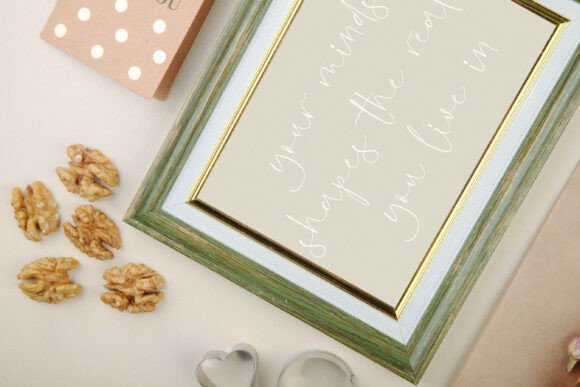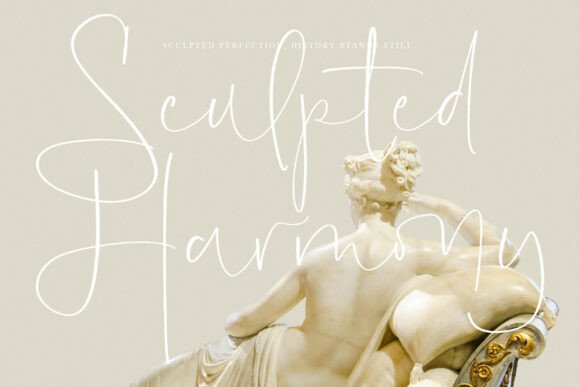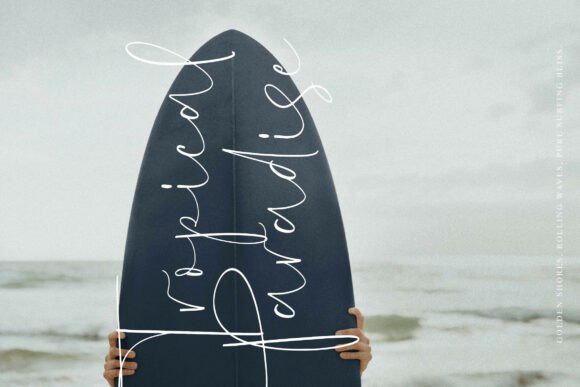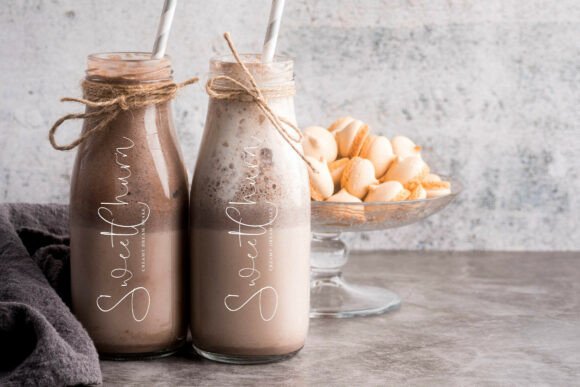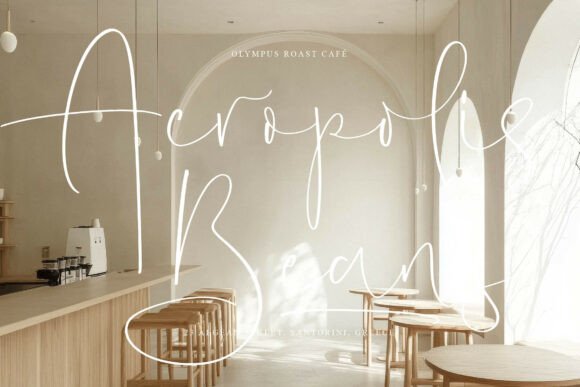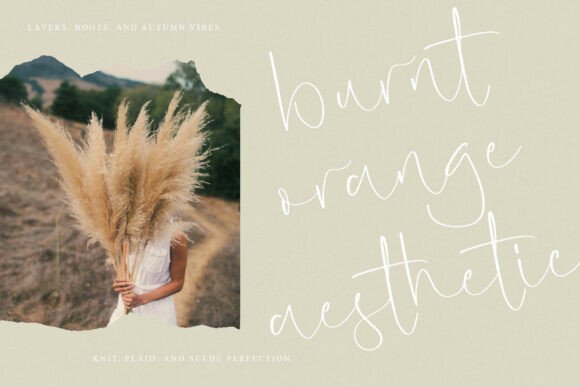
Introducing Acropholis Font: Elevate Your Designs with Elegance and Sophistication
In the world of typography, fonts play a crucial role in conveying the tone and aesthetic of a design. For those seeking a typeface that exudes elegance, romance, and a touch of whimsy, Acropholis Font is an exceptional choice. This light and airy handwritten font boasts an ethereal presence, making it perfect for a variety of creative projects, from editorial layouts and wedding invitations to poetry quotes and personal journals.
The Characteristics of Acropholis Font
Acropholis Font is distinguished by its long ascenders and elegant flow, which collectively contribute to its sophisticated and romantic feel. The font’s design is characterized by:
- Light and Airy Texture: Acropholis has a delicate, airy quality that adds a layer of refinement to any design.
- Ethereal Presence: The font’s ethereal nature makes it stand out, giving it a unique and captivating charm.
- Long Ascenders: The extended ascenders contribute to the font’s elegant and sophisticated appearance.
- Elegant Flow: The smooth, flowing lines of Acropholis enhance its romantic and refined aesthetic.
Ideal Uses for Acropholis Font
Given its distinctive characteristics, Acropholis Font is well-suited for a range of applications, including:
- Editorial Layouts: Add a touch of sophistication to magazine articles, blog posts, and other editorial content.
- Minimalist Wedding Invites: The font’s elegance and romance make it an excellent choice for wedding invitations and other wedding-related materials.
- Poetry Quotes: Acropholis’ ethereal and refined nature lends itself beautifully to showcasing poetic quotes and literary works.
- Personal Journals: Use Acropholis to add a personal and artistic touch to journal entries, making them a joy to write in and reflect on.
Why Designers and Crafters Love Acropholis Font
Designers and crafters appreciate fonts that can elevate their work and provide a unique aesthetic appeal. Acropholis Font offers:
- Versatility: Its elegant and sophisticated design makes it suitable for a wide range of projects.
- Unique Aesthetic: The font’s distinctive look helps designers and crafters create standout pieces that capture attention.
- Emotional Connection: Acropholis’ romantic and ethereal qualities can evoke emotions, making it ideal for projects where a personal touch is desired.
Tips for Using Acropholis Font Effectively
To maximize the impact of Acropholis Font in your designs, consider the following tips:
- Pair with Complementary Fonts: Combine Acropholis with simpler, sans-serif fonts to create visual contrast and hierarchy.
- Adjust Line Spacing: Experiment with line spacing to enhance the airy and elegant feel of the font.
- Use for Headings and Quotes: Utilize Acropholis for headings, titles, and quotes to draw attention and add a touch of sophistication.
Acropholis Font is a beautiful, elegant typeface that can add a touch of sophistication and romance to various design projects. Its unique characteristics, versatility, and emotional appeal make it a favorite among designers and crafters. Whether you’re working on editorial layouts, wedding invitations, poetry quotes, or personal journals, Acropholis Font is an excellent choice for those seeking to elevate their designs with elegance and refinement.